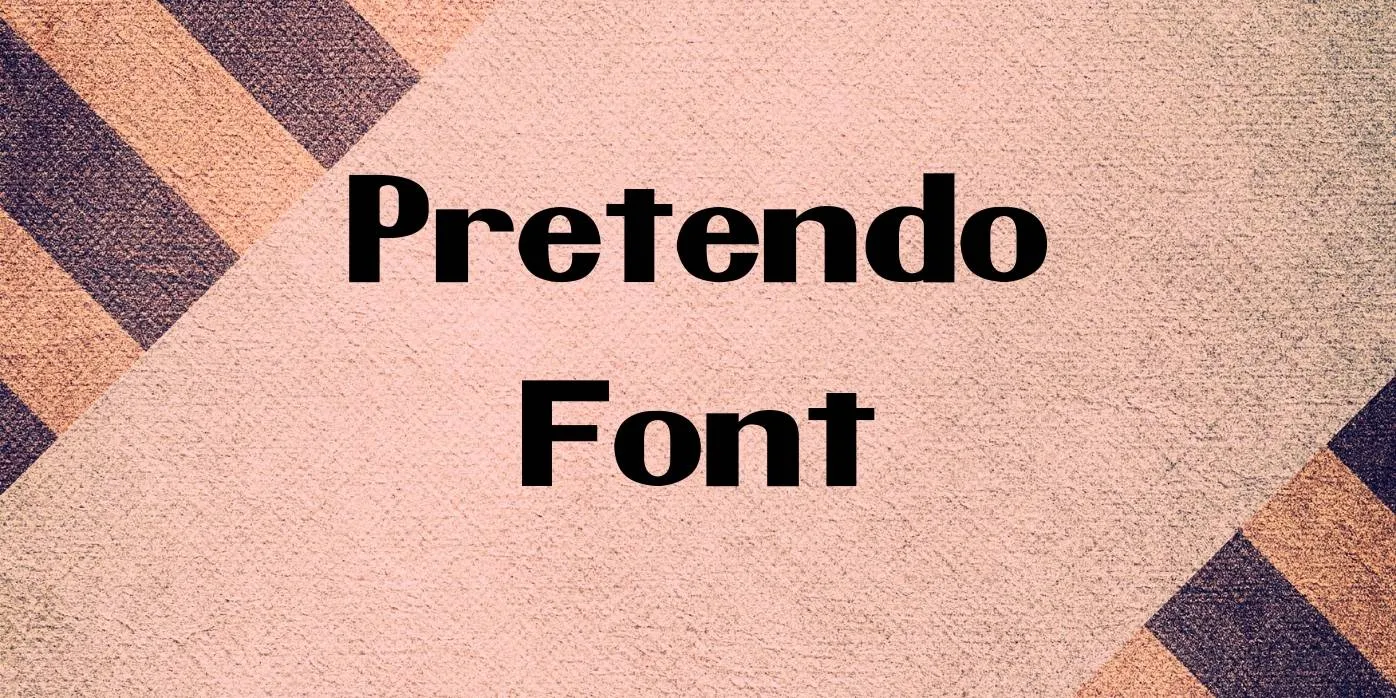
Pretendo Font
In this post, we introduce a classic and stylish typeface that is known by the name Pretendo Font. This classy typeface was designed by Mr. Erwin. It belongs to the Sans Serif typeface.
In the year 2002, this amazing typeface was released on the market. It is a well-known typeface for its stylish looks. This cute font can be used in both personal and commercial projects. This Sans Serif typeface has available in two styles namely Regular and Bold.
Each style contains 53 characters along with 1000 units per em. Moreover, it supports various languages such as Latin, Greek, and Cyrillic. It’s similar to neuzeit font which is perfect for various designs. Pretendo Font family consists of 4 unique font weights.
These are Thin, Light, Regular, and Bold. All these four weights have the same character width. So, you can easily use them together without any issue. You need to use its generator tool that is best for many amazing designs.